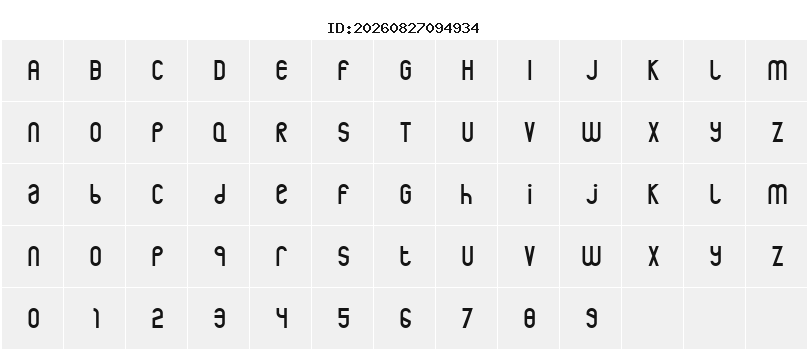
342-CAI978 Preview
• Font Name: 342-CAI978
About 342-CAI978.ttf
342-CAI978.ttf is a modern, elegant sans-serif font designed for ultimate readability and visual harmony. Perfect for branding, headlines, web design, and print materials.